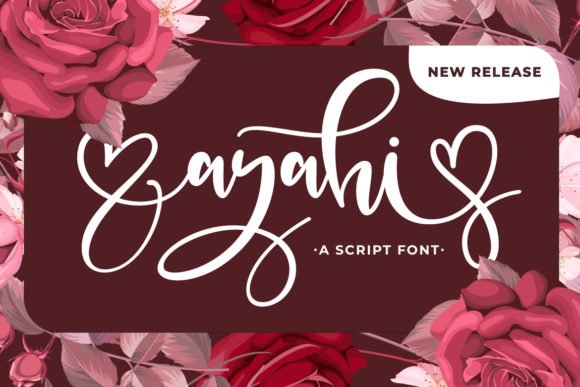
The Joy of Handwritten Text: Discovering the Beauty of Ayahi Font
As a designer, there’s nothing quite like the thrill of finding the perfect font to bring your vision to life. It’s that moment when the words start flowing, and the entire design begins to take shape. You know, that feeling when you stumble upon a font that makes your heart skip a beat?
For those who share this passion, we’re excited to introduce the Ayahi Font – a delicate, elegant, and flowing handwritten font that’s sure to captivate your senses. With its beautiful and well-balanced characters, Ayahi Font is the perfect addition to any design project. Whether you’re working on a romantic wedding invitation or a whimsical children’s book, this font is sure to add a touch of sophistication and whimsy.
What sets Ayahi Font apart is its PUA encoding, making it easy to access all the glyphs and swashes you need to create stunning designs. Whether you’re a seasoned pro or just starting out, Ayahi Font is a valuable asset for any designer looking to add a personal touch to their work.
Ayahi Font Key Features
- Font Type: Script, Decorative, Calligraphy
- Character Set: Latin, Cyrillic, Greek, and other languages (multilingual support)
- Resolution: Scalable vector graphics (SVG) for high-resolution display
- Unique Characteristics: Elegant, cursive, and ornate design with intricate details, suitable for titles, headings, and decorative purposes
Ayahi Font Review
Overall, I think Ayahi Font is a beautiful script font that can add a touch of elegance to your designs. Here are some of its strengths:
- ✨ Unique and flowing lines that give it a handwritten feel.
- ✨ Highly legible, even at smaller font sizes.
- ✨ Compatible with a wide range of design applications.
- ⚠️ Limited character set, which may not be suitable for languages that require a wide range of characters.
- ⚠️ Some characters may not be as detailed or ornate as others, which can affect the overall consistency of the font.
- ⚠️ May not be as suitable for bold or condensed font uses.
Overall, I think Ayahi Font is a great choice for designers who want to add a touch of sophistication and elegance to their designs. While it has some limitations, its unique style and high legibility make it a great option for a wide range of projects. With some careful consideration of its limitations, Ayahi Font can be a valuable addition to any designer’s toolkit.
Tips for Getting the Most Out of Ayahi Font
Ayahi Font is commonly used in:
1. Branding and logo design.
2. Digital marketing materials such as social media posts and ads.
3. Print materials such as business cards and brochures.
3. Merriweather Font
Merriweather is a classic serif font designed by Eben Sorkin. It is a traditional font that works well for print materials, such as books and magazines. Merriweather has a more formal and elegant feel compared to Ayahi Font, and is better suited for longer blocks of text.
Open Sans is a modern sans-serif font designed by Steve Matteson. It is a clean and highly legible font that works well for digital interfaces and branding materials. Open Sans is similar to Ayahi Font in its simplicity, but it is more geometric and has a stronger x-height.
Unique Design Projects with Ayahi Font
Create a romantic and dreamy wedding invitation using the Ayahi Font. The elegant and flowing script style of Ayahi Font will add a touch of sophistication and whimsy to your invitation.